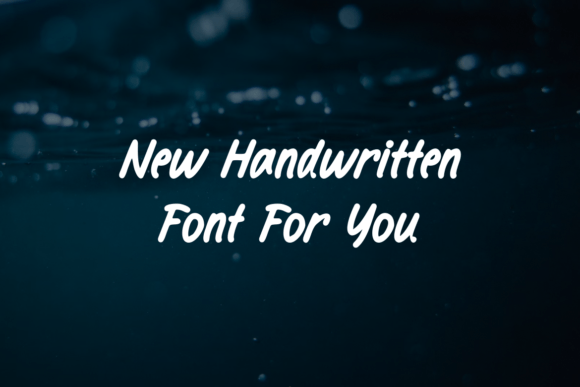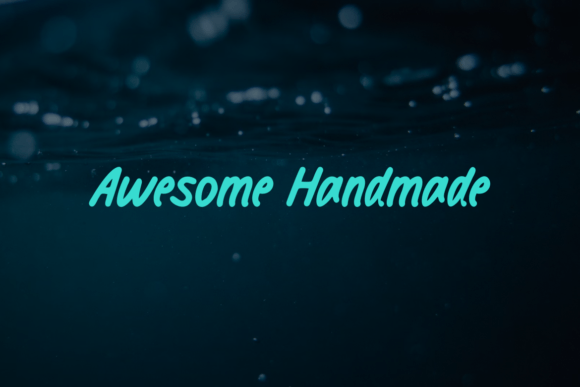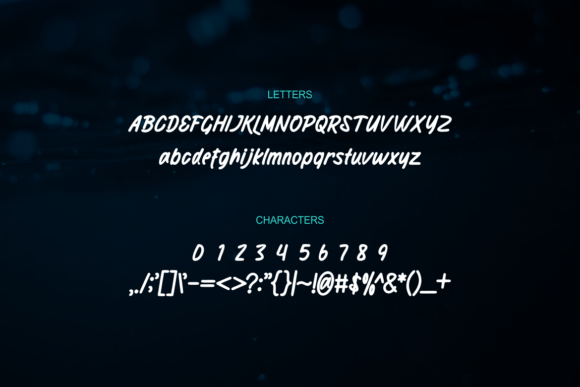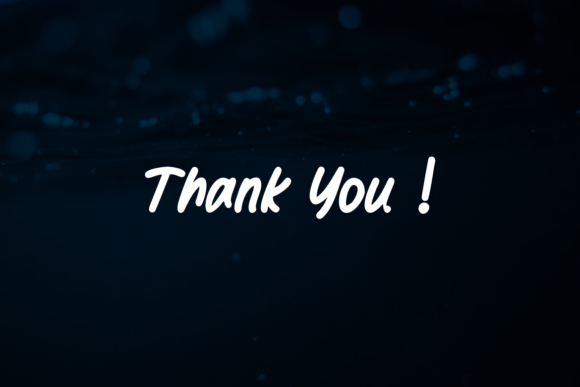
Introducing Genk Clek Font: The Fun and Playful Handwritten Font for Creative Designs
Are you looking for a font that can add a touch of friendliness and creativity to your designs? Look no further than Genk Clek, a fun and playful handwritten font that is perfect for creating engaging and visually appealing designs. In this article, we’ll take a closer look at Genk Clek, its features, and how you can use it to elevate your designs.
What is Genk Clek Font?
Genk Clek is a handwriting font that mimics the look of writing with a marker. The letters are bold, easy to read, and have a casual, relaxed style that makes it perfect for creating designs that feel friendly and approachable. The font is designed to give your text a personal and informal touch, making it ideal for creative projects such as posters, invitations, greeting cards, and more.
Key Features of Genk Clek Font
- Handwritten style: Genk Clek has a unique handwritten style that gives your text a personal and informal touch.
- Bold and easy to read: The font is bold and easy to read, making it perfect for designs that need to grab attention.
- Casual and relaxed style: Genk Clek has a casual and relaxed style that makes it perfect for creating designs that feel friendly and approachable.
- Marker-like feel: The font mimics the look of writing with a marker, giving your text a fun and playful feel.
Use Cases for Genk Clek Font
Genk Clek is a versatile font that can be used in a variety of creative projects. Here are some use cases where Genk Clek can shine:
- Posters and flyers: Genk Clek is perfect for creating eye-catching posters and flyers that need to grab attention.
- Invitations and greeting cards: The font’s casual and relaxed style makes it ideal for creating invitations and greeting cards that feel personal and friendly.
- Social media graphics: Genk Clek can be used to create engaging social media graphics that stand out from the crowd.
- Branding and packaging: The font can be used to create a friendly and approachable brand identity that resonates with your target audience.
Tips for Using Genk Clek Font
Here are some tips for using Genk Clek to get the most out of this amazing font:
- Use it with a clear purpose: Genk Clek is a font that demands attention, so use it with a clear purpose in mind.
- Experiment with colors and textures: The font looks great with bold colors and textures, so don’t be afraid to experiment.
- Pair it with other fonts: Genk Clek can be paired with other fonts to create a unique and interesting contrast.
- Keep it simple: Don’t overcomplicate your design – keep it simple and let Genk Clek do the talking.
Genk Clek is a fun and playful handwritten font that can add a touch of friendliness and creativity to your designs. With its bold and easy-to-read letters, casual and relaxed style, and marker-like feel, Genk Clek is perfect for creating engaging and visually appealing designs. Whether you’re a designer, crafter, or DIY enthusiast, Genk Clek is a font that’s sure to inspire your creativity and take your designs to the next level.